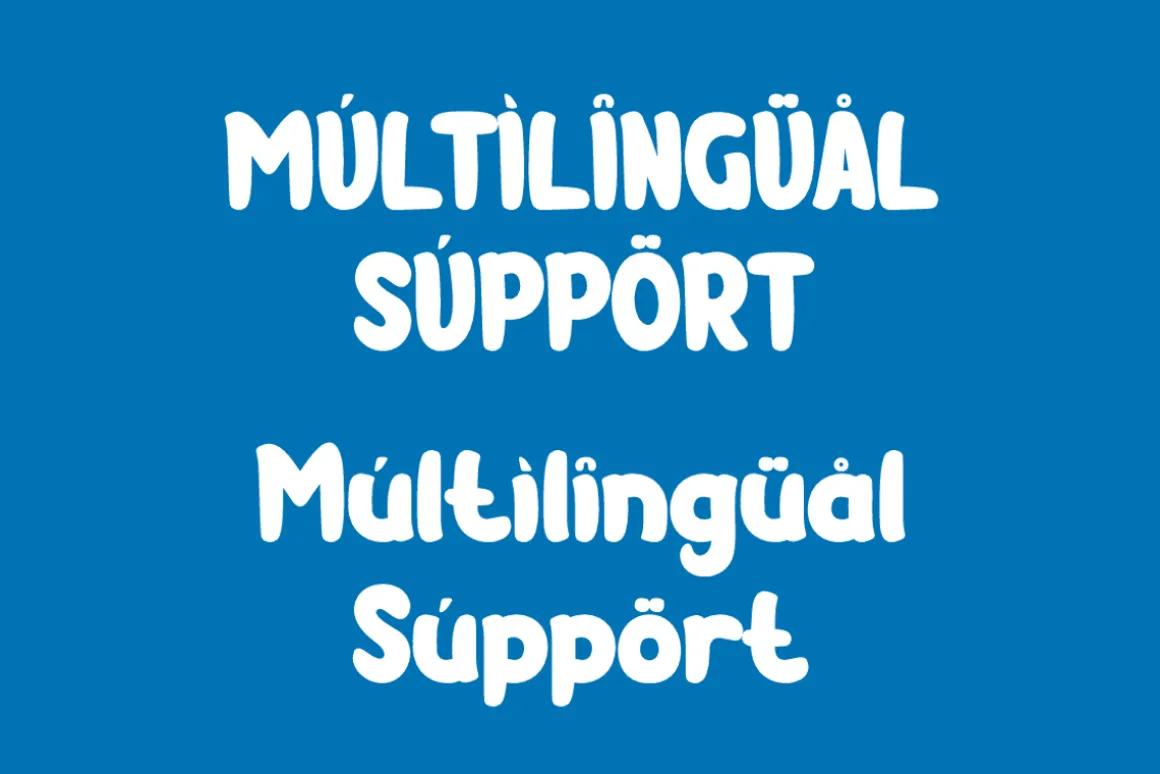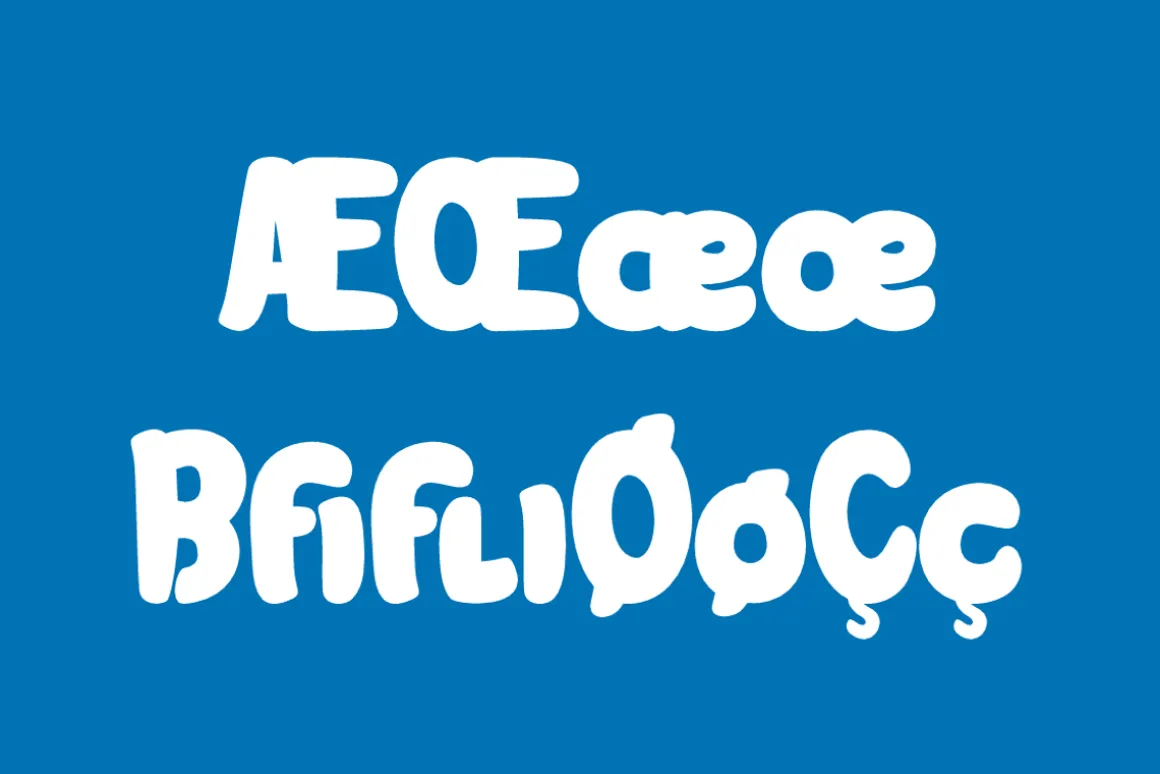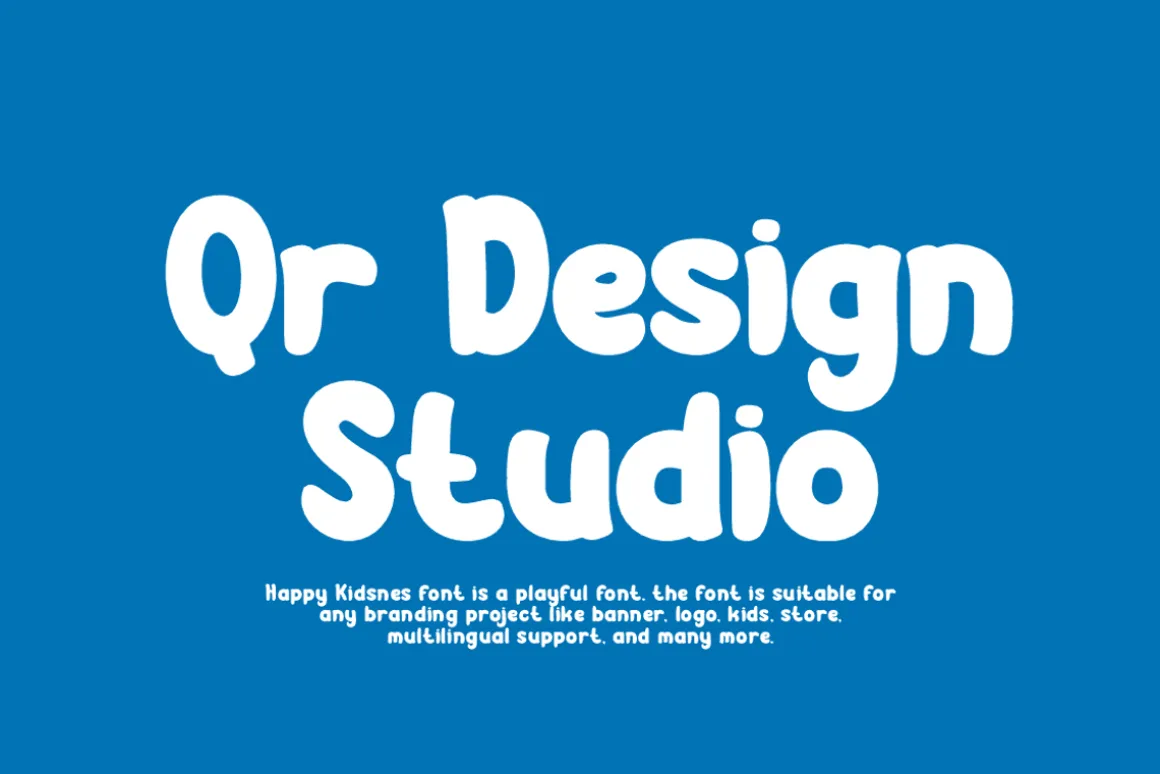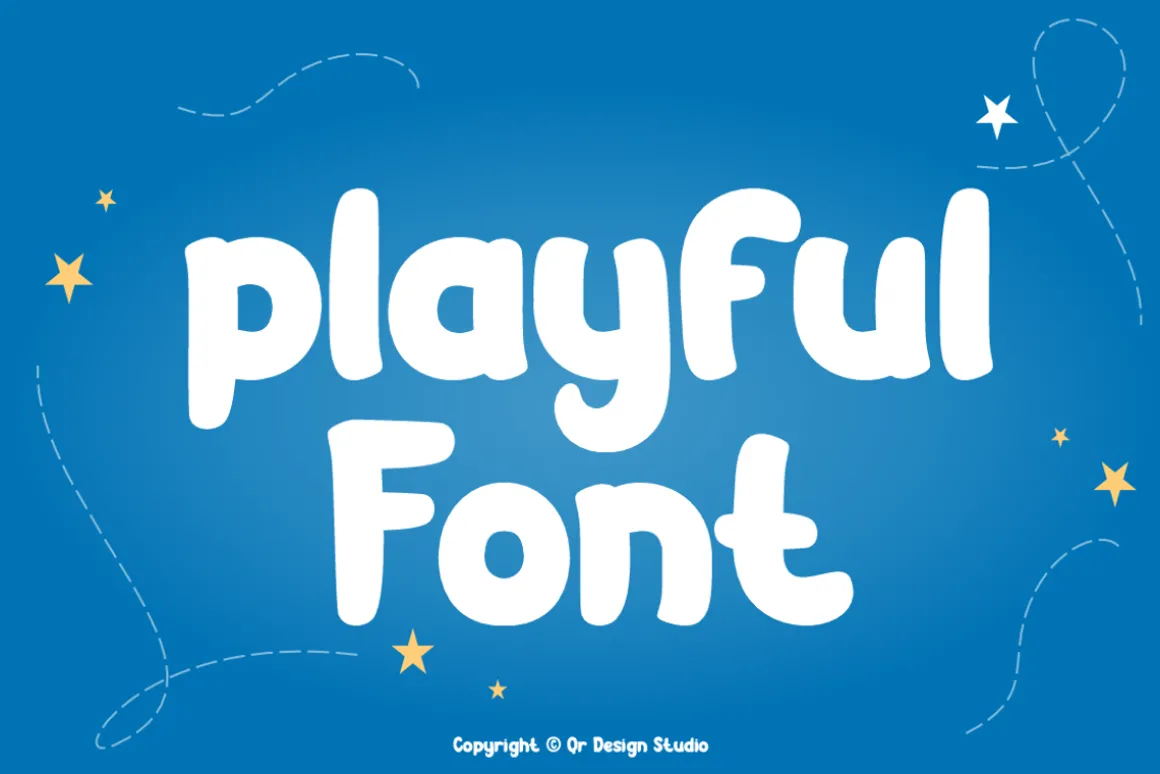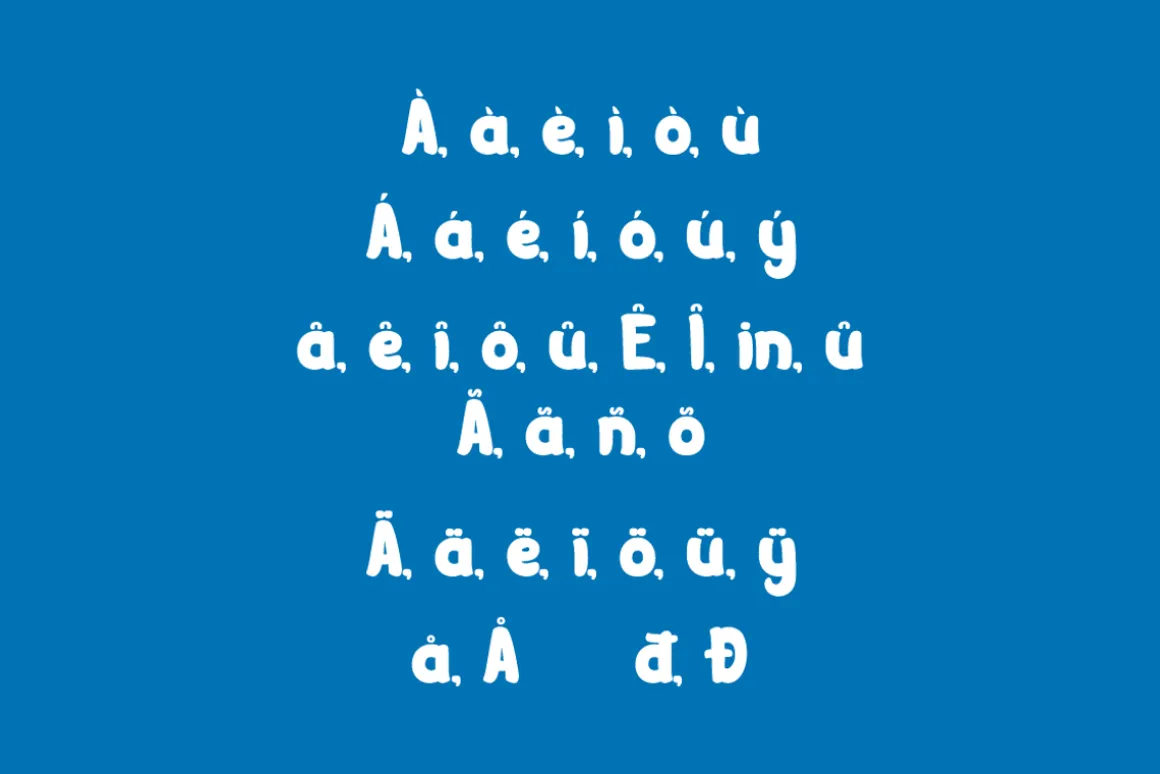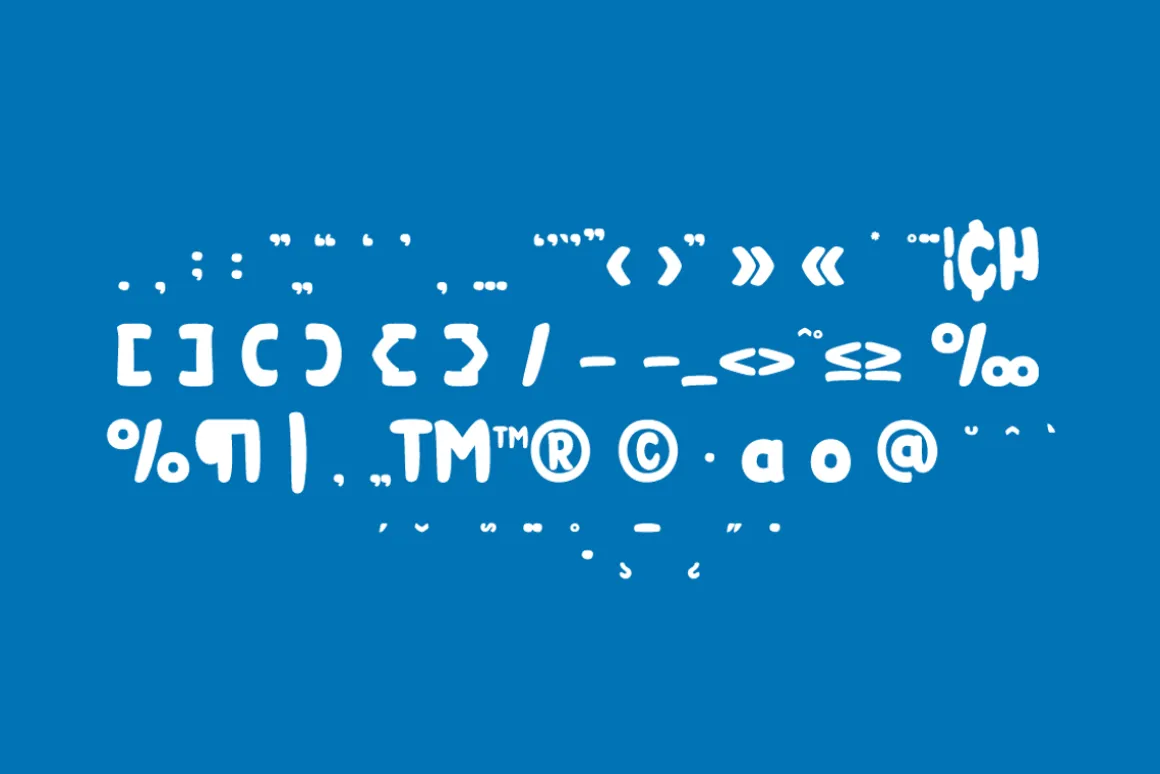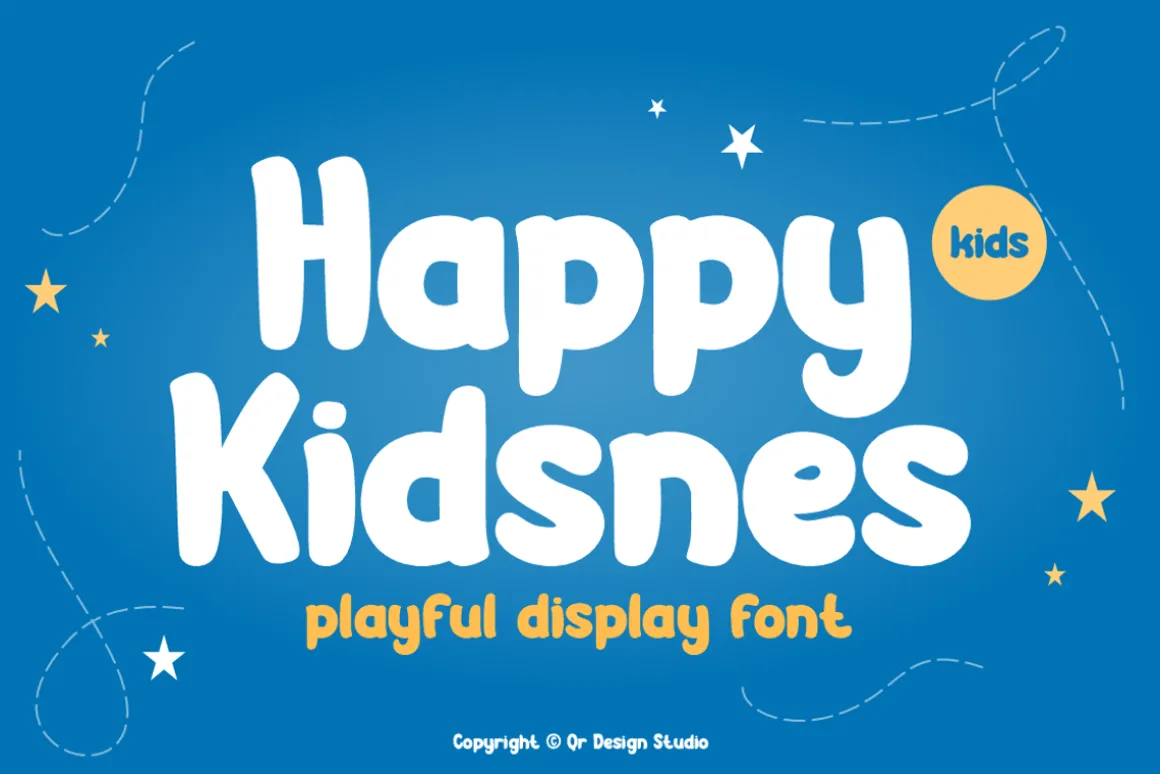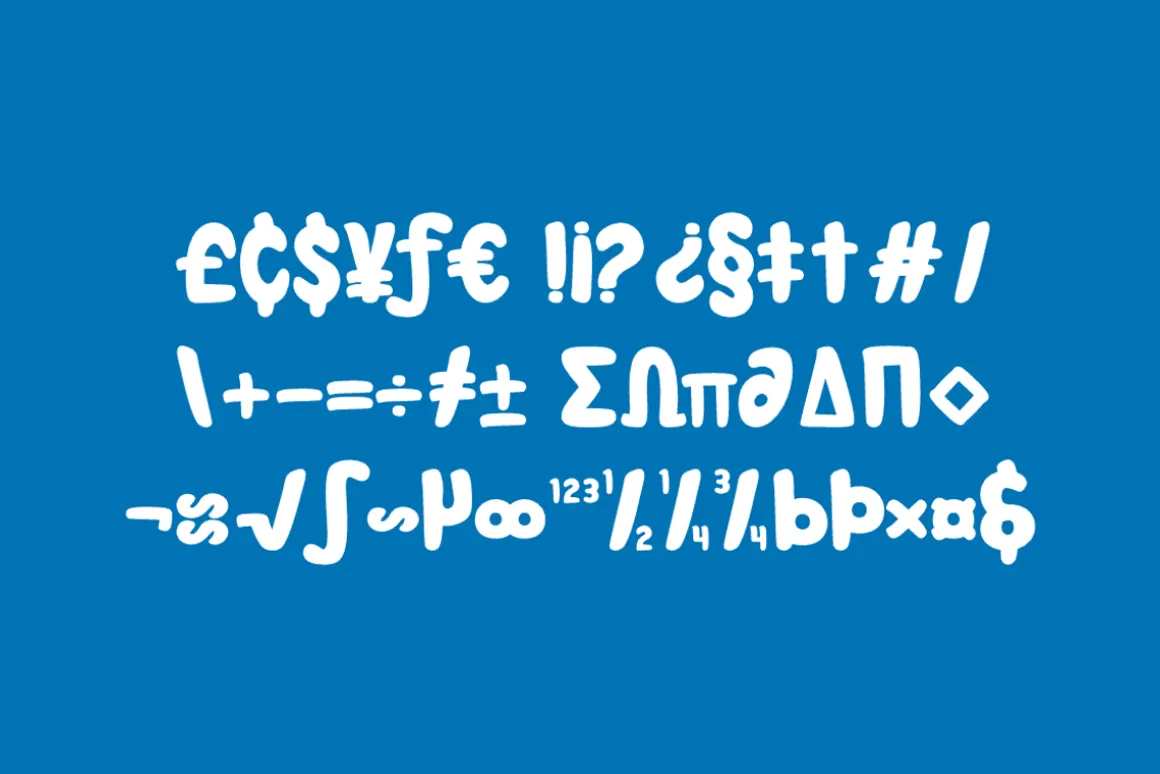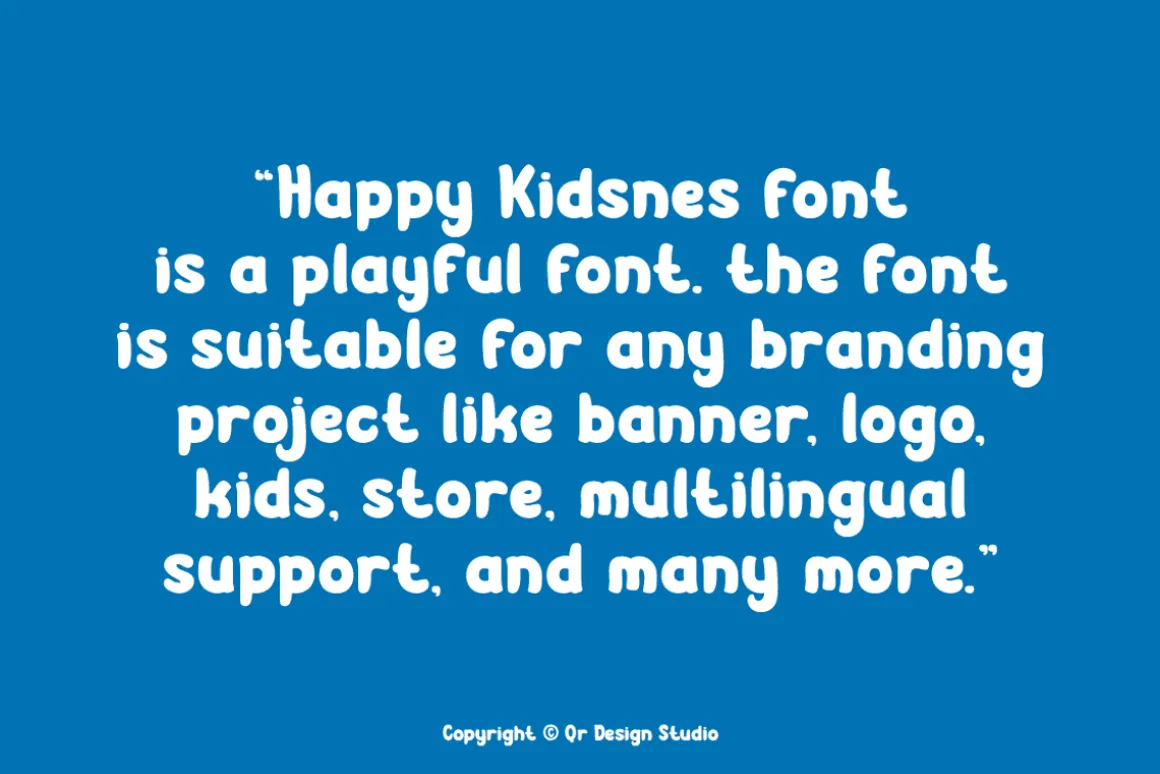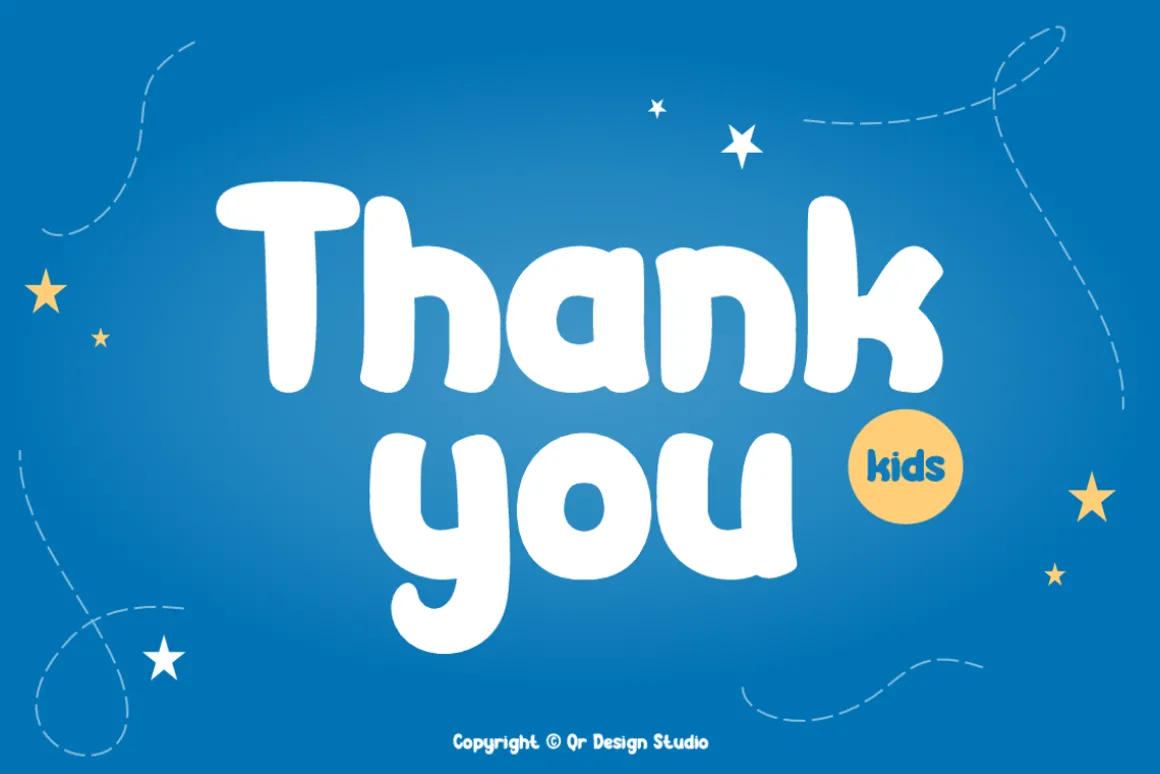
Happy Kidsnes Font is a playful and authentic display font.The font is suitable for any branding project like poster, logo, kids, and many more.Outstanding in a wide range of contexts.